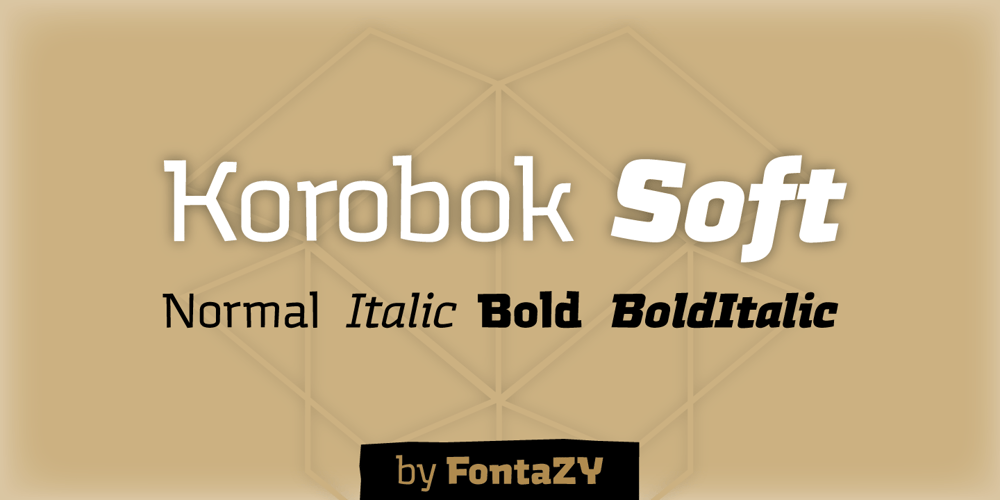
Korobok Soft Font Family was designed by Zakhar Yaschin and published by FontaZY. Korobok Soft contains 4 styles and family package options. Korobok mean “little box” in Russian. Korobok is irregular font with asymmectric serifs and slightly geometric appearance. This font is good for children books, comic books, videogames and package design. Korobok comes in two sub-families – Korobok Soft (with smooth edges) & Korobok Edgy (width straight edges), both includes 4 styles.